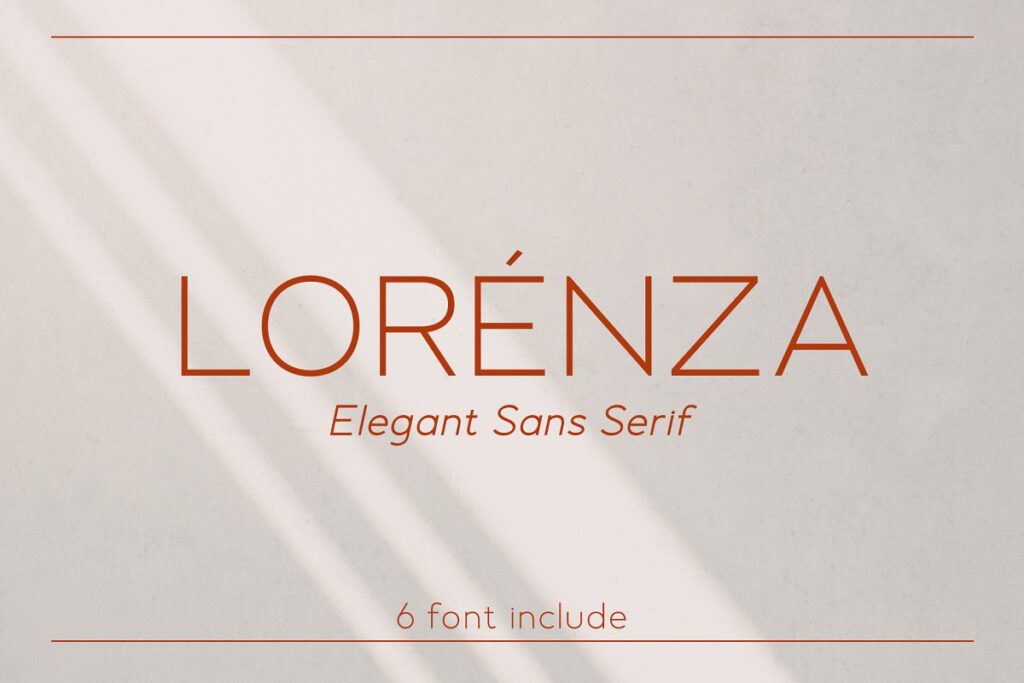
LORENZA Elegant Sans Family Our latest product inspired by the famous logo is simple but classy, made with precision and measured. very good for combining your design work with a clear line and a circle with several different weights that are very comfortable in the design area you are easy to read and as a title on a blog or magazine page